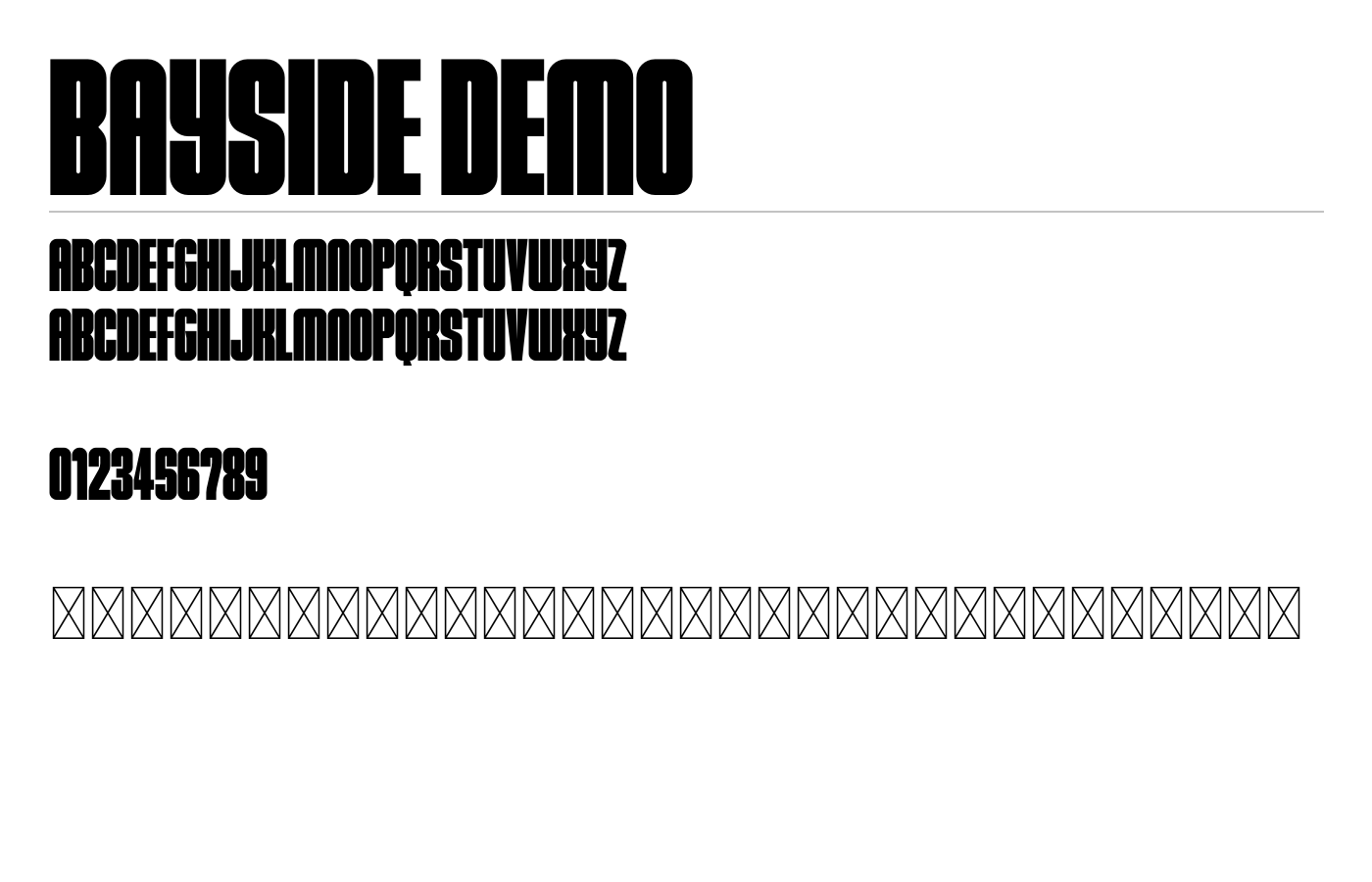
Bayside Demo is a bold, condensed sans serif font with a strikingly tall and narrow appearance, giving it a strong, modern, and urban feel. Its heavy weight and uniform stroke width create a powerful impact, making it ideal for headlines, posters, and branding where attention-grabbing style is key. This font works best in designs that require a confident, contemporary vibe with a touch of industrial edge.
Bayside Demo Font
About Bayside Demo Font
| Font family | Bayside Demo Font |
| Designer | Indieground Design |